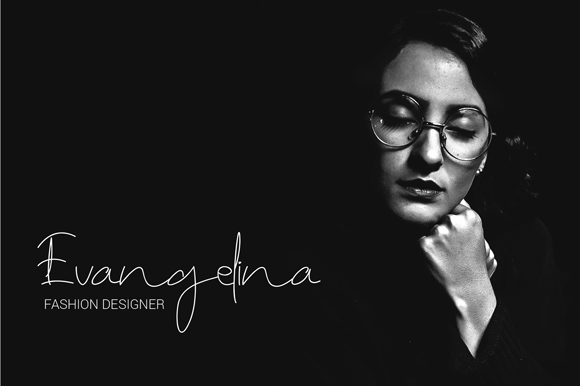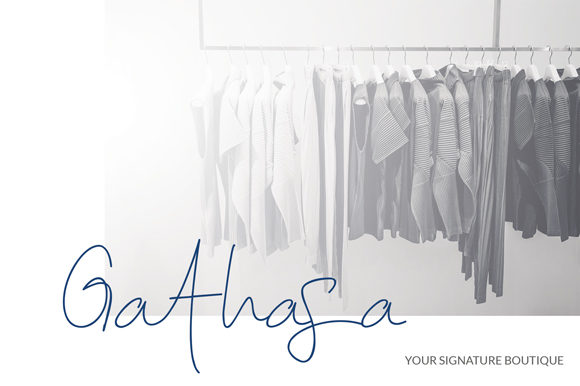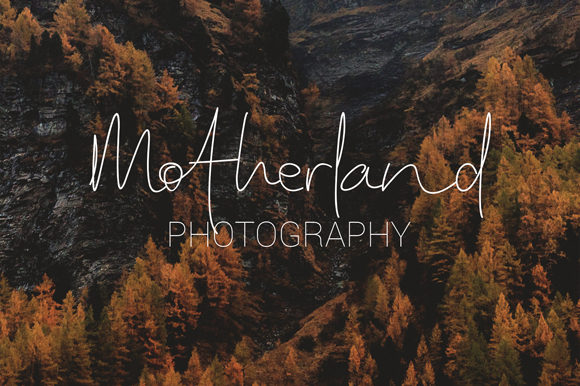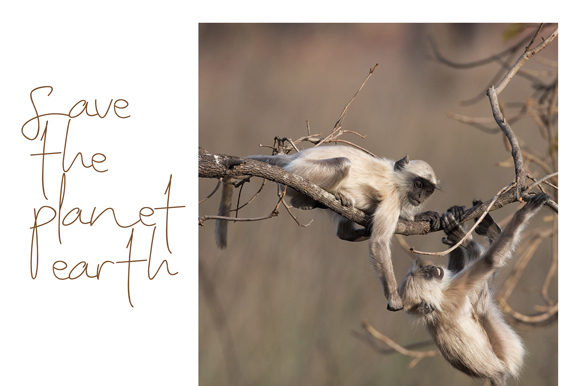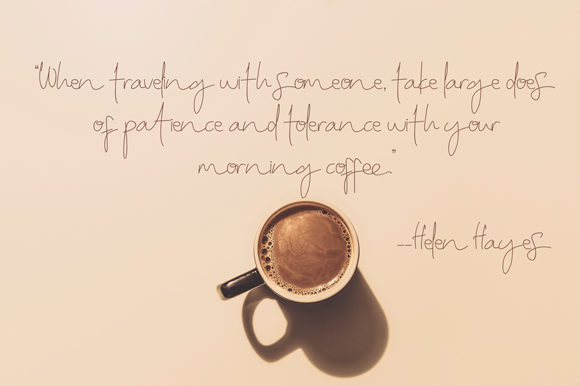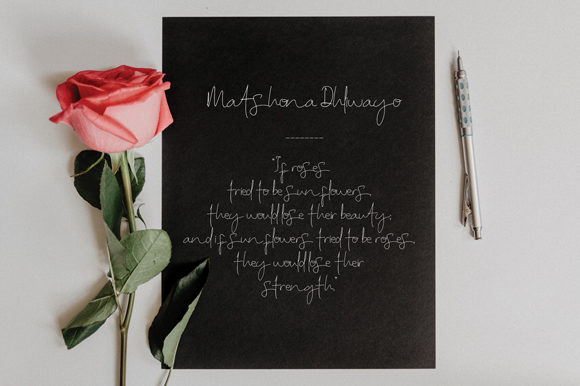
Introduction to Mathard Font
Have you ever been working on a design project, pouring your heart and soul into it, only to feel like something’s missing? That’s exactly what happened to us when we stumbled upon the perfect solution – the Mathard Font. This signature font, crafted with original handwriting, adds an authentic and heartfelt vibe to any design project, making it a must-have for creatives.
Whether you’re a graphic designer, artist, or simply a DIY enthusiast, the Mathard Font is a valuable resource to have in your toolkit. With its high-quality design and transparent background, it’s the perfect addition to any creative project. And the best part? It’s available for free download, making it accessible to designers of all levels.
Key Features of Mathard Font
- High-quality design resource ideal for creative projects requiring unique typography.
- Mathard Font features a transparent background, allowing for seamless integration with various design elements and backgrounds.
- Designed with a focus on readability and legibility, making it suitable for use in a wide range of applications, from print materials to digital interfaces.
- The font includes a comprehensive character set, supporting multiple languages and ensuring that it can be used for projects requiring internationalization.
- Mathard Font is available in multiple font sizes and resolutions, including 300 DPI and 600 DPI, catering to various design requirements.
- Its unique, modern design aesthetic makes it an excellent choice for designers seeking to add a touch of creativity to their projects.
Honest Review: Mathard Font
As a designer, I’m always on the lookout for high-quality design resources that can elevate my creative projects. Recently, I had the chance to try out the Mathard Font, and I’m excited to share my honest review with you.
- Unique and elegant design style that adds a touch of sophistication to any project
- High-quality font files that render beautifully on transparent backgrounds
- Wide range of language support, making it a great choice for global design projects
- Only available in a few font weights, which may limit its versatility for some projects
- Not as extensive a character set as some other fonts, which may cause issues for designers who need a wide range of special characters
Overall, I’m impressed with the Mathard Font’s elegant design style and high-quality files. While it may have some limitations, it’s a great choice for designers looking for a sophisticated font to add a touch of class to their creative projects.
Introduction to Mathard Font
The Mathard Font is a high-quality design resource ideal for creative projects. It features a transparent background, making it perfect for overlaying on images or backgrounds.
- Experiment with different font sizes and styles to create unique and eye-catching designs.
- Use the Mathard Font in conjunction with other design elements, such as images and shapes, to create visually appealing graphics.
Common Use Cases for the Mathard Font
The Mathard Font is ideal for a range of creative projects, including:
Does the Mathard Font have a transparent background?
Yes, the Mathard Font has a transparent background, which makes it perfect for designing on a variety of backgrounds. This feature allows for seamless integration with your design and gives you more creative control.